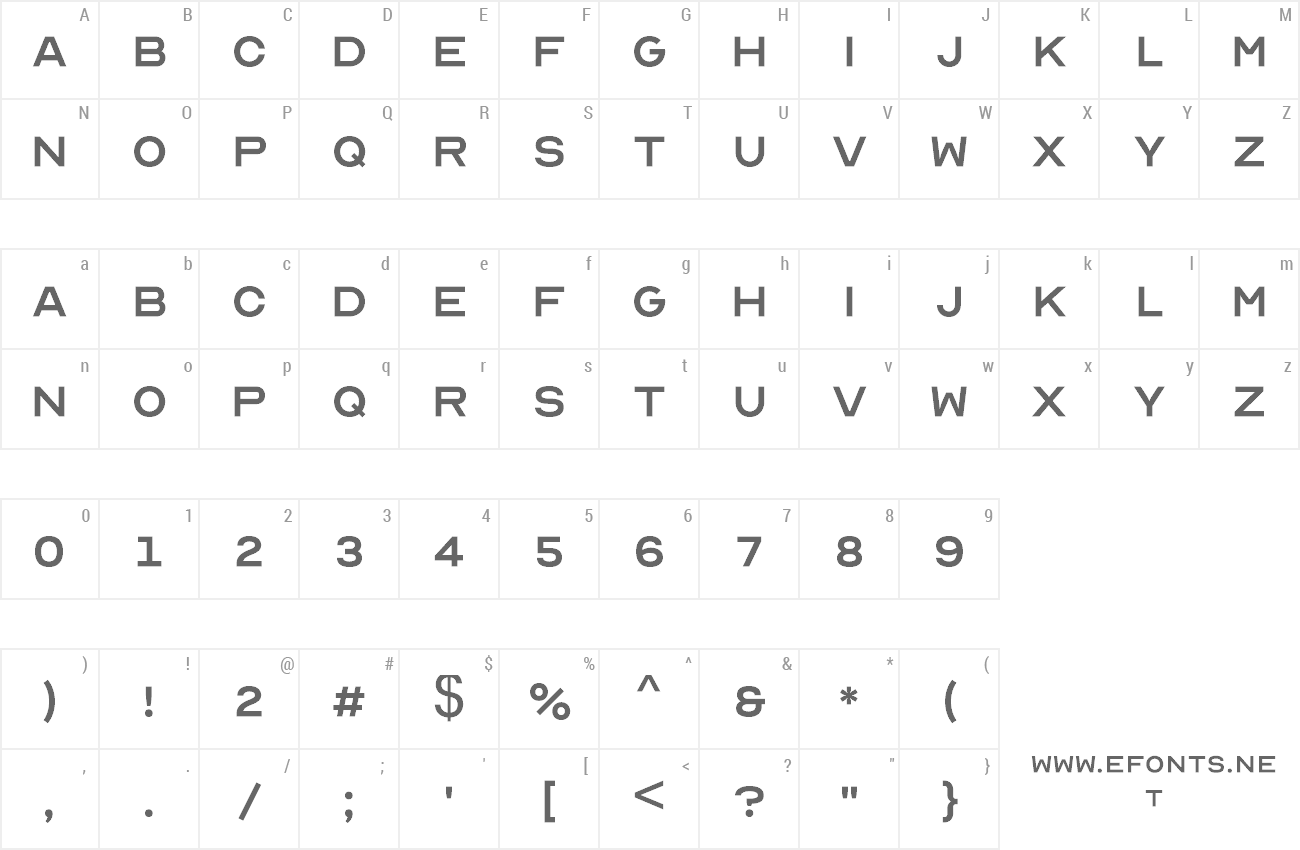
| Optician Sans is a free typeface based on the 10 historical optotype letters seen on millions of eye charts world wide. Finalising the work that was started decades ago. Visit optician-sans.com for more information. |